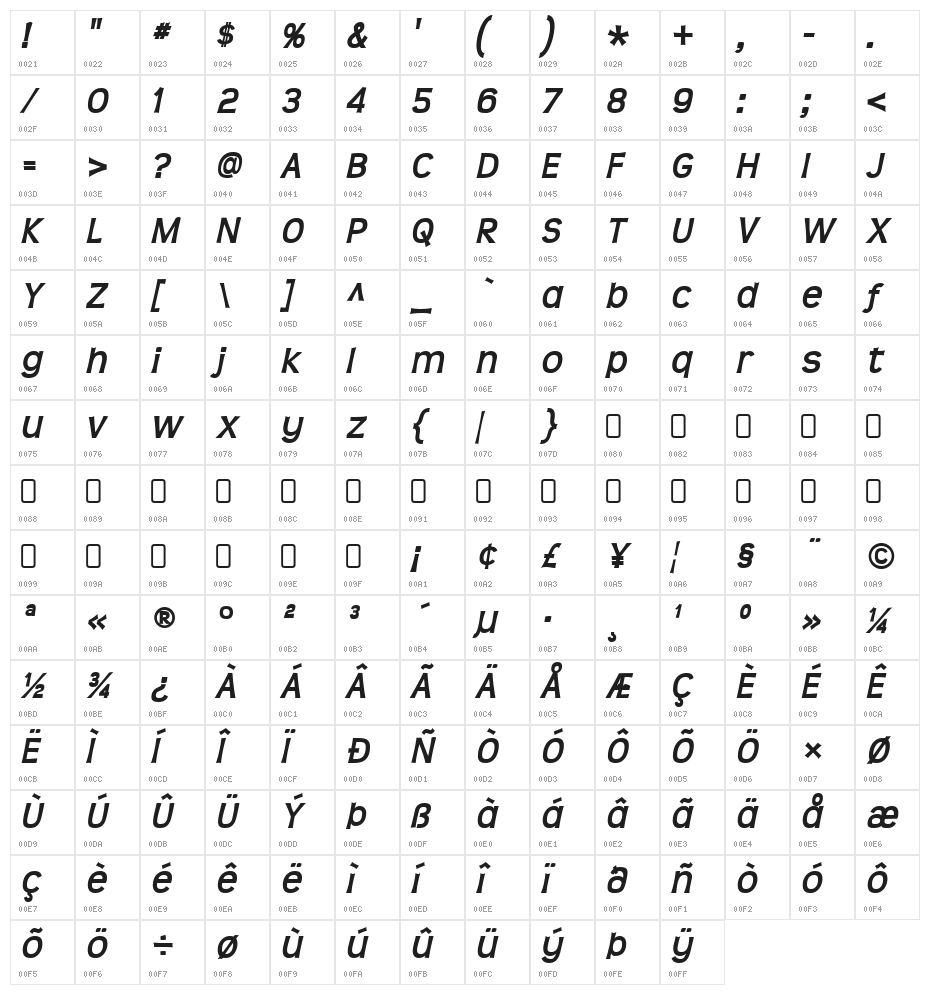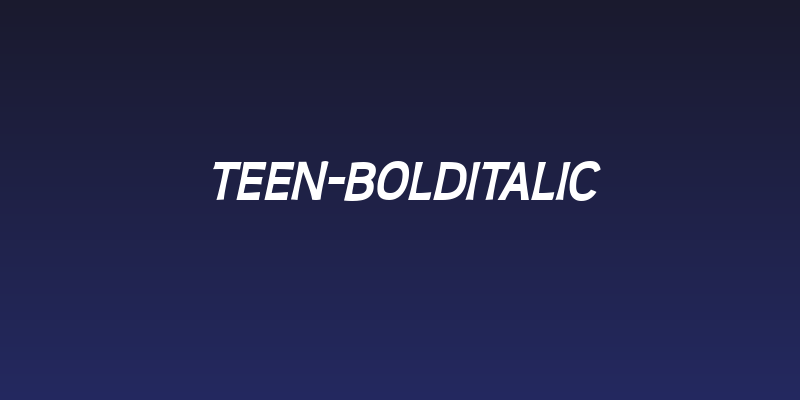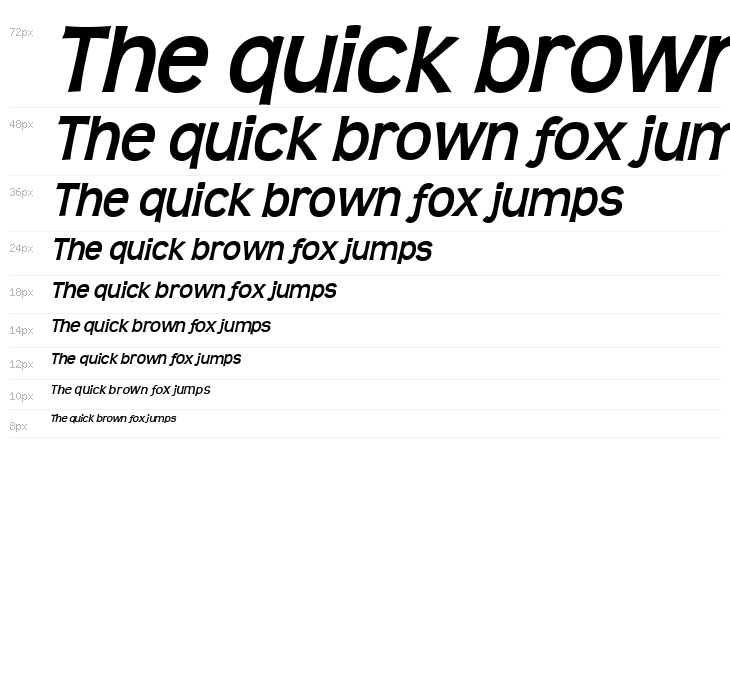
Teen-BoldItalic Font
Teen-BoldItalic Description
This font exhibits a bold and italicized style, characterized by its strong presence and dynamic slant. The uppercase and lowercase letters maintain a consistent thickness, providing a uniform appearance across the text. The numbers and special characters follow the same bold and italicized design, ensuring cohesion throughout. The font's modern aesthetic is enhanced by its clean lines and smooth curves, making it suitable for a variety of applications. Its readability is maintained despite the bold weight, thanks to the well-proportioned spacing between characters.
| Proposed Projects | Ideal for headlines, branding, advertising, and any project requiring a strong, modern typeface. |